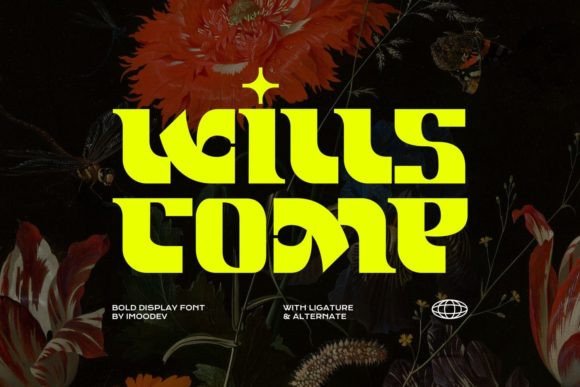
Step into a world of captivating designs with Wills Come Font, the ultimate display font that is sure to make your creative visions dance. Its bold strokes and playful curves are a perfect match for any project that seeks to grab attention.
With Wills Come Font, monotony becomes a thing of the past. Its unique character gives your designs a vibrant energy that commands attention. It's more than just a font; it's a gateway to a world of striking visuals that are guaranteed to leave a lasting impression.
Unlock the endless possibilities of creativity with Wills Come Font. From history titles that transport readers to the past to eye-catching headlines that demand attention, this font delivers in every aspect. Its remarkable versatility shines through, whether in posters, social media graphics, or stunning logos.
Whether you're a seasoned design guru or just starting out, Wills Come Font is your trusted companion in the journey to create designs that captivate and inspire. Dare to stand out. Embrace the unconventional. Make your mark with Wills Come Font.
Introducing Imoodev, the visionary behind Wills Come Font. Their passion for typography and keen eye for detail resulted in this extraordinary creation. When you choose Wills Come Font, you're not just downloading a font; you're inviting innovation into your design process.
Experience the magic of Wills Come Font today and witness the transformation of your designs. Be bold, be different, and let your creativity flourish. Embrace the possibilities and watch your designs come alive!